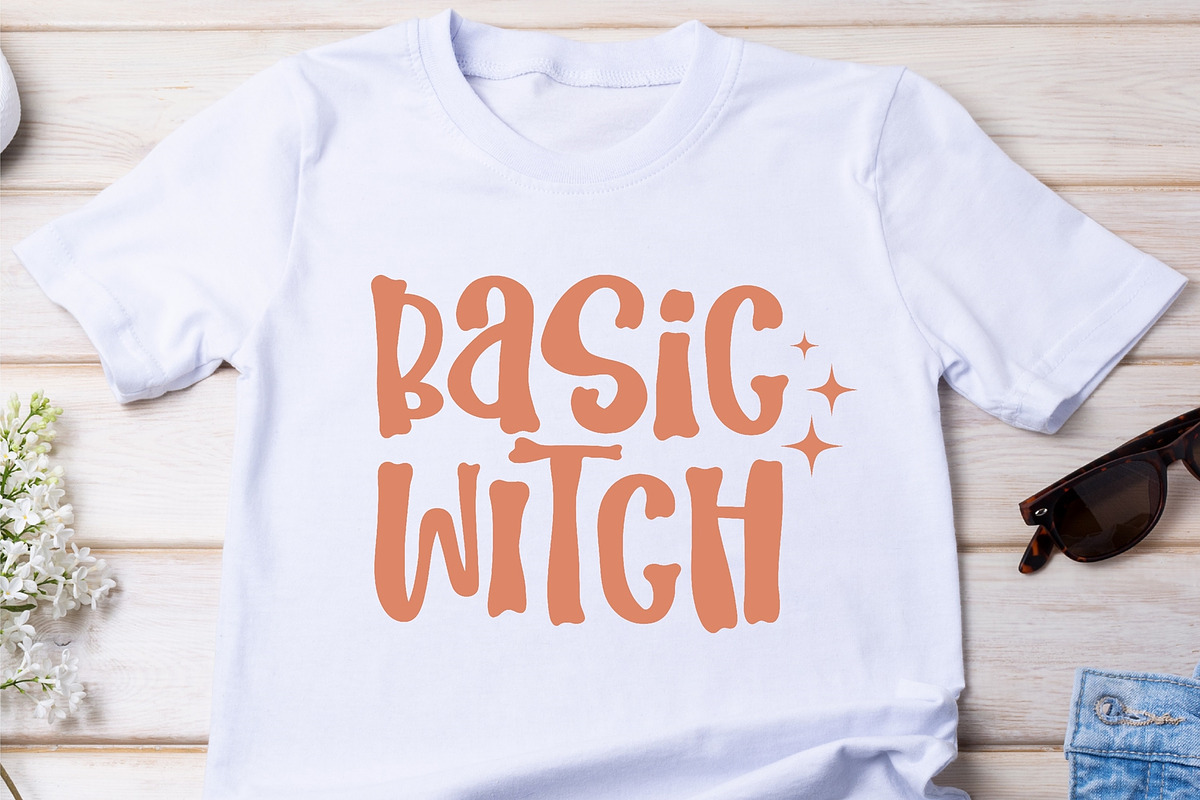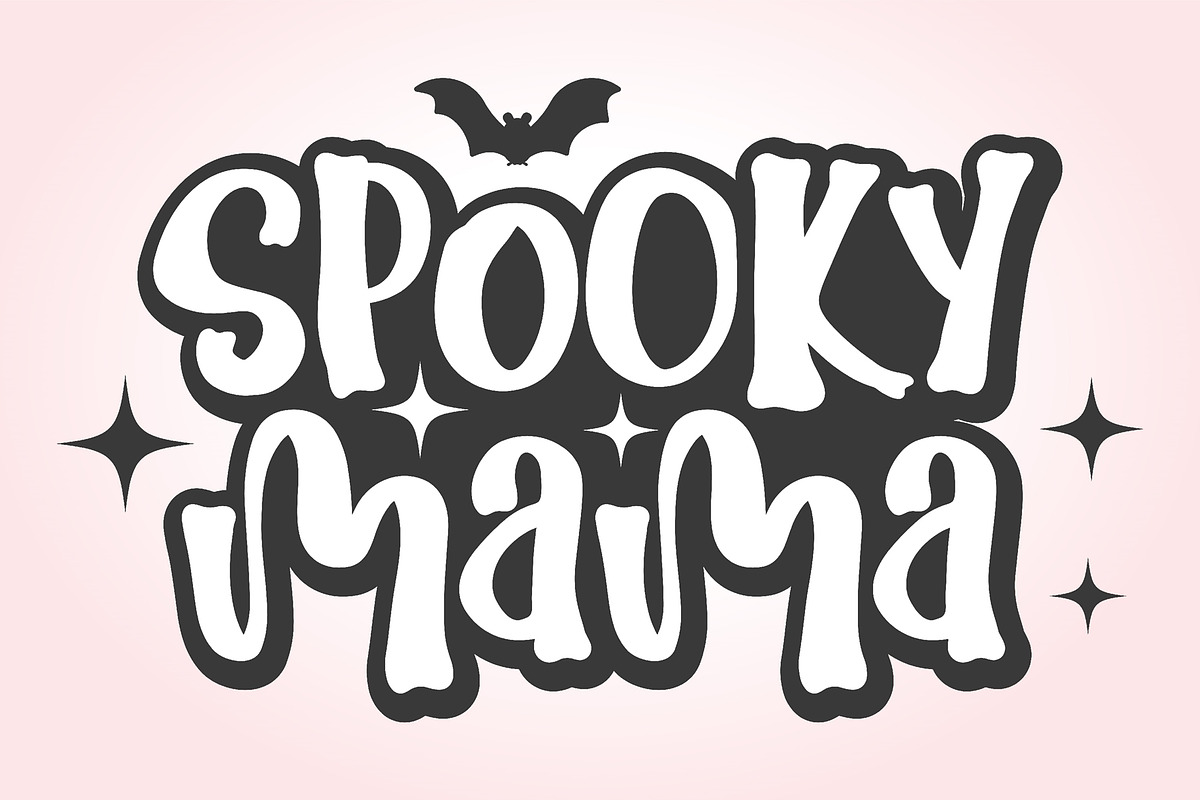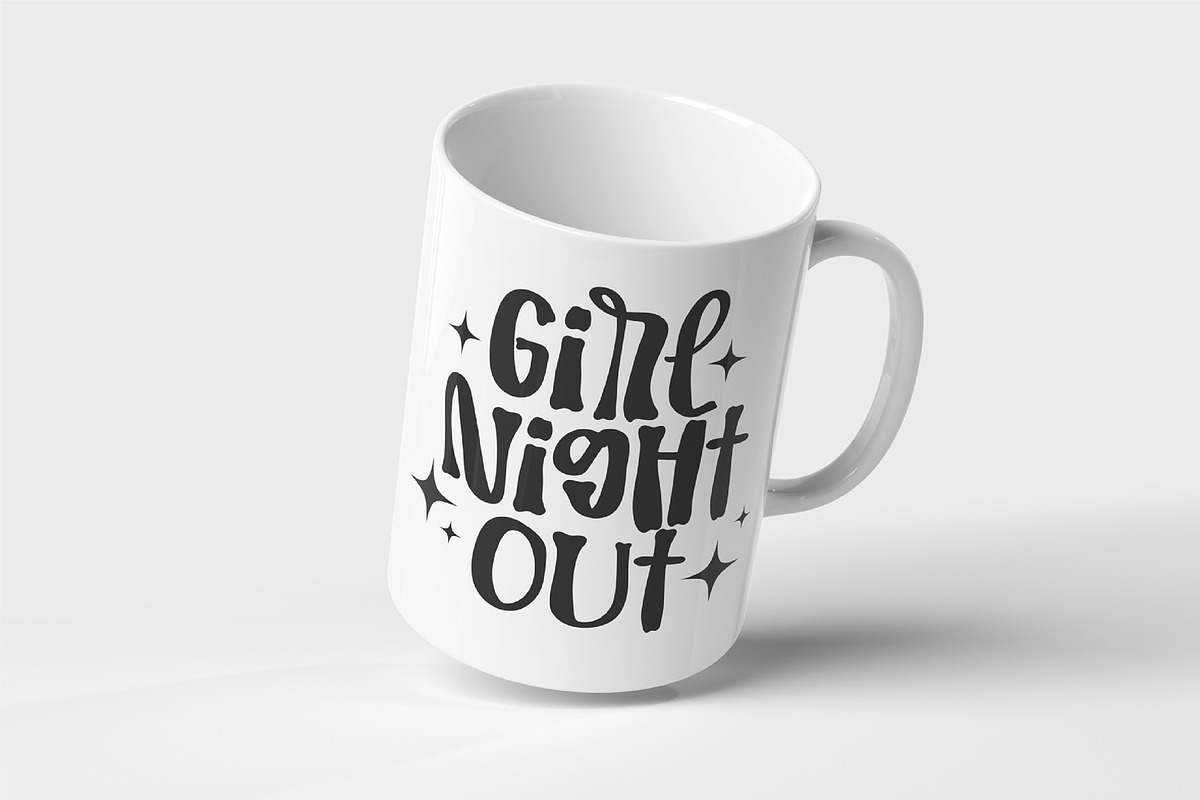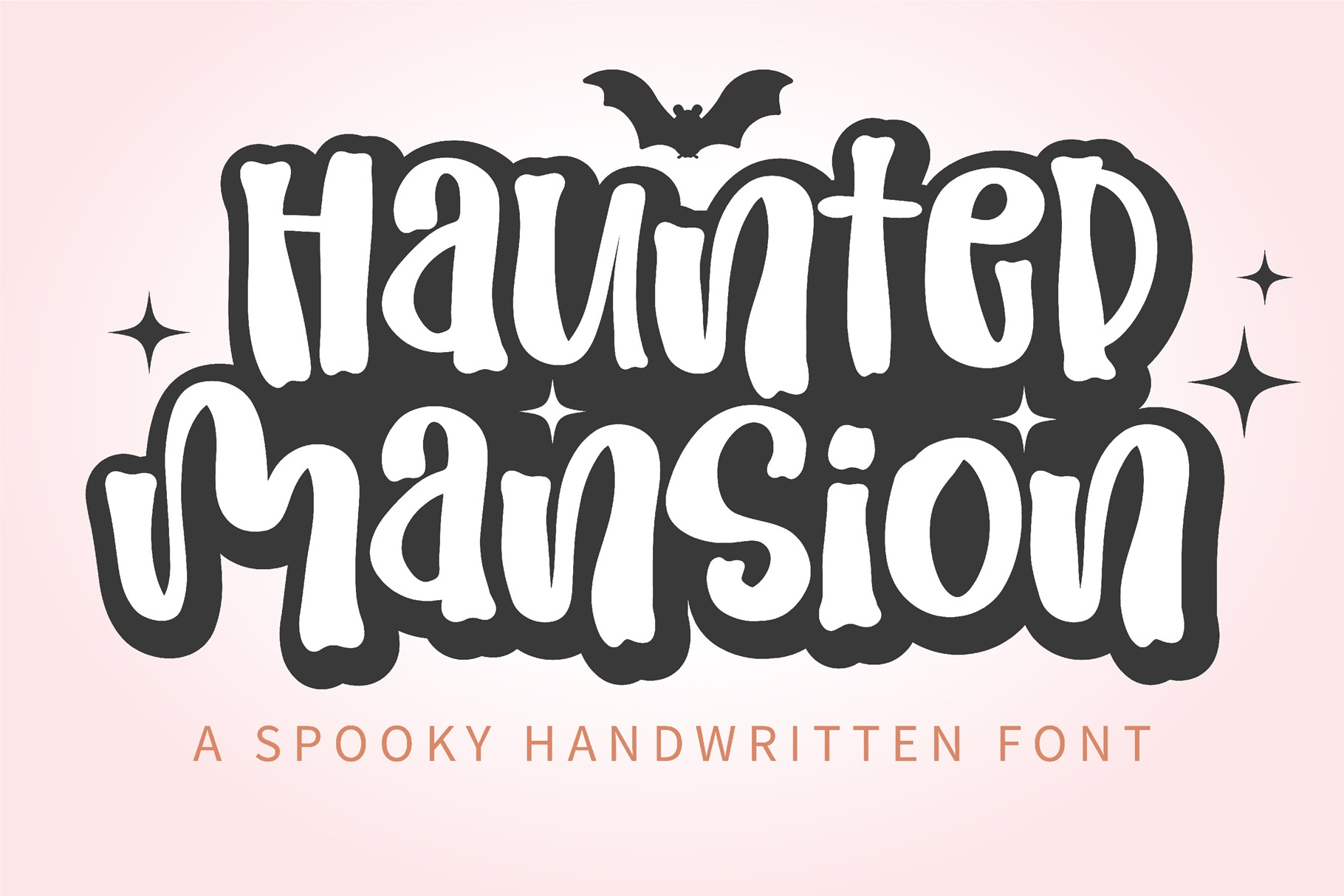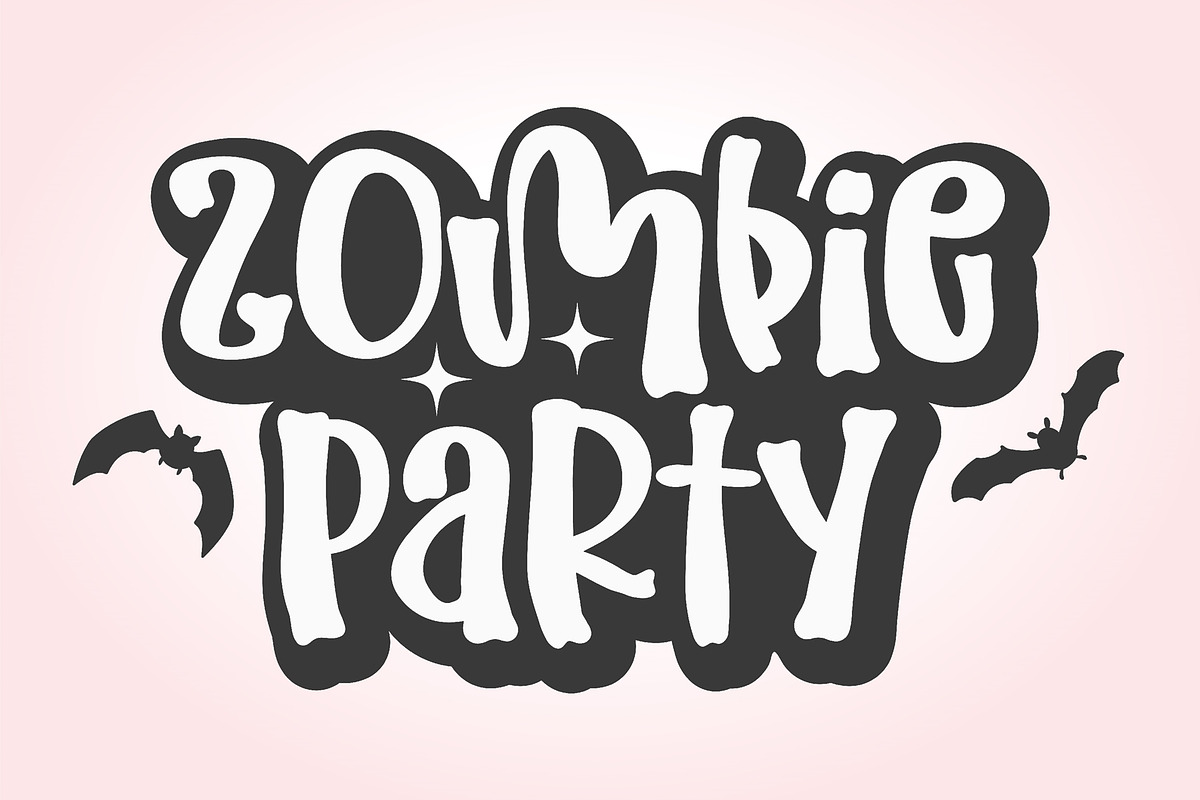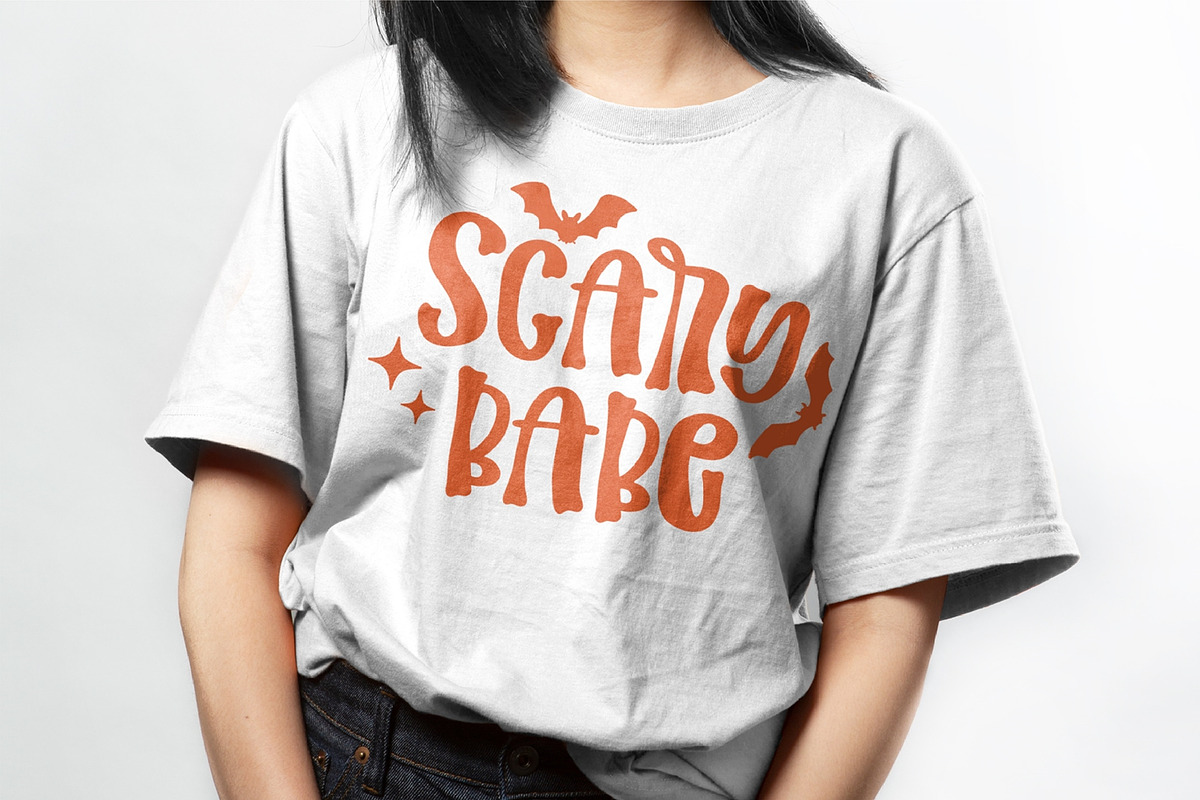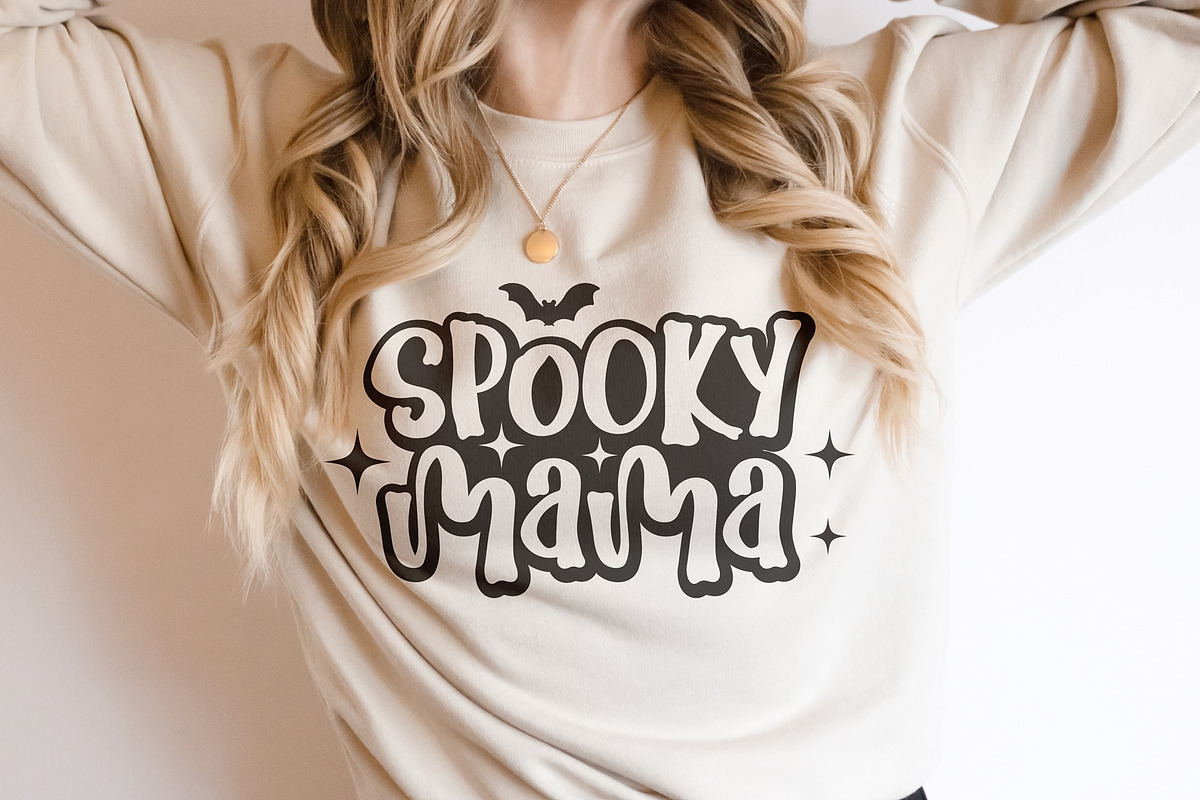
Haunted Mansion - Halloween font
Haunted Mansion is a spooky and fun Halloween font. It is perfect for any October project that requires a dramatic touch!